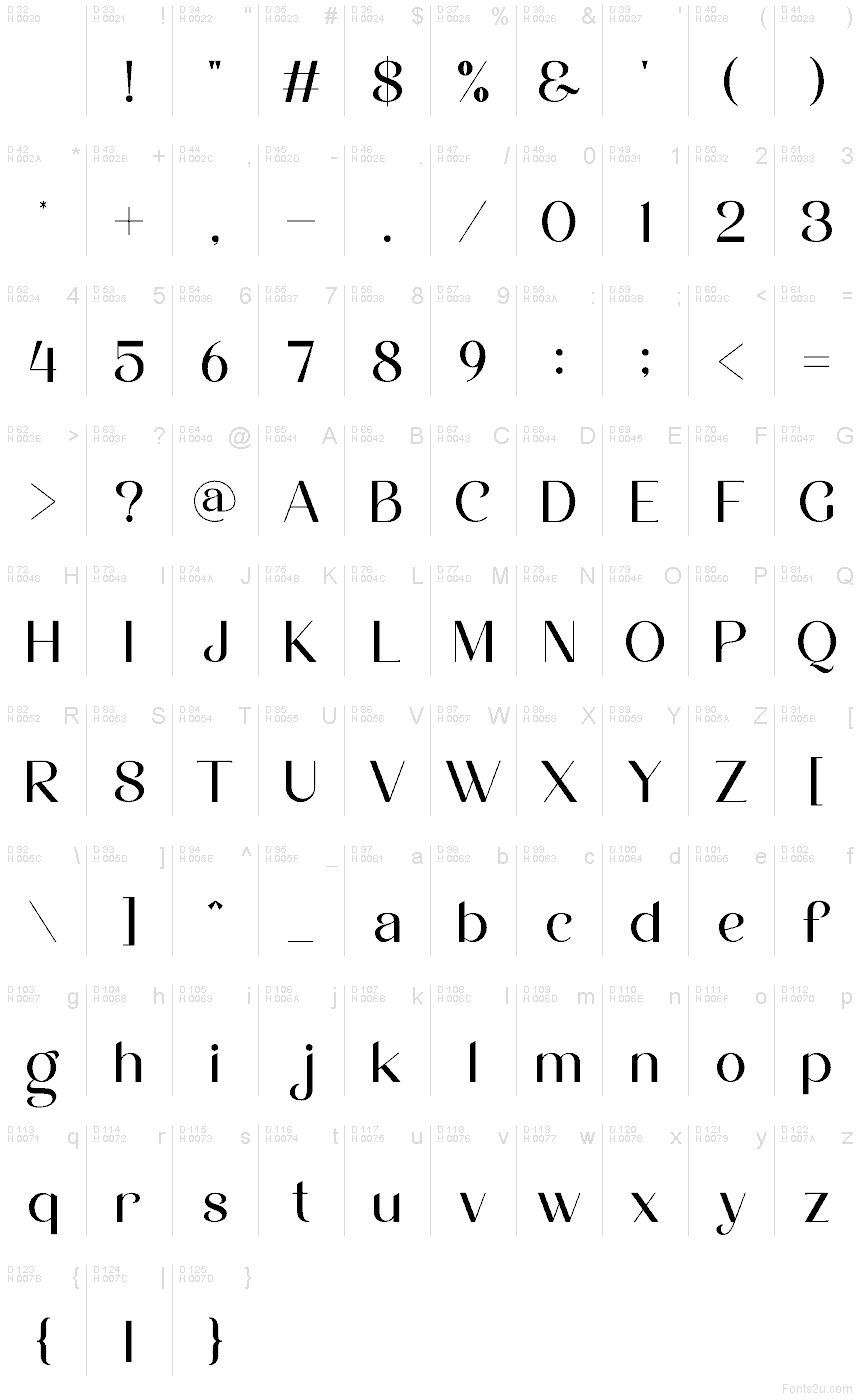
Blinery
Blinery font by ErmediaStudio is a free vintage serif font. Built around lush contrast and razor-clean cuts, it blends inky, weighty stems with airy hairlines and a sly, sweeping tail on the y. The result feels like a modern boutique take on classic Didone—crisp, glossy, and a little indulgent—so headlines snap while still feeling crafted by hand.
Using Blinery, you’ll get confident impact for boutique branding, wine and perfume labels, editorial mastheads, event posters, luxury packaging, and wedding invites. This free font loves generous letterspacing at display sizes, and it sings when paired with a quiet neo-grotesque for body copy.